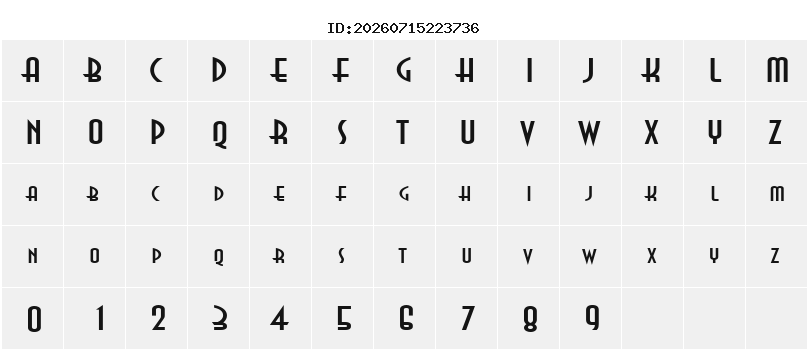
• Font Name: Asia Extended
• Full Font Name: Asia Extended Normal
About Asia Extended.ttf
Asia Extended.ttf is a modern, elegant sans-serif font designed for ultimate readability and visual harmony. Perfect for branding, headlines, web design, and print materials.